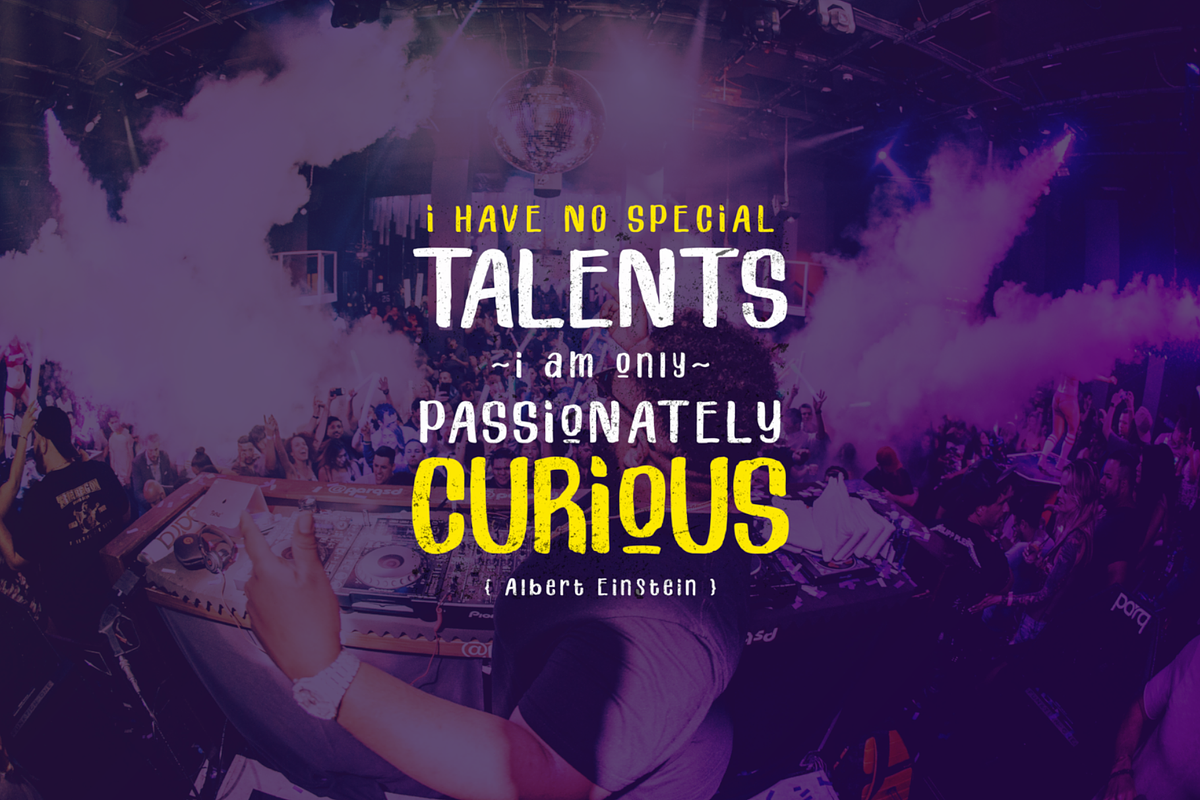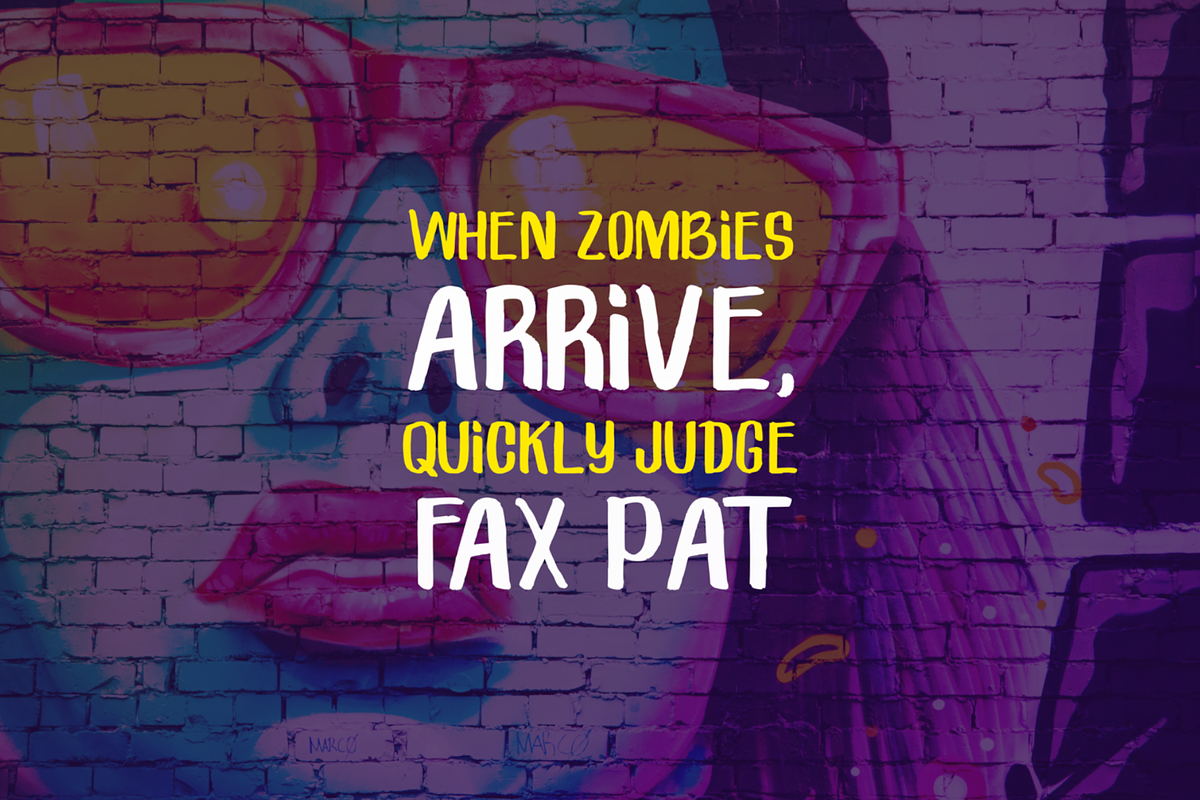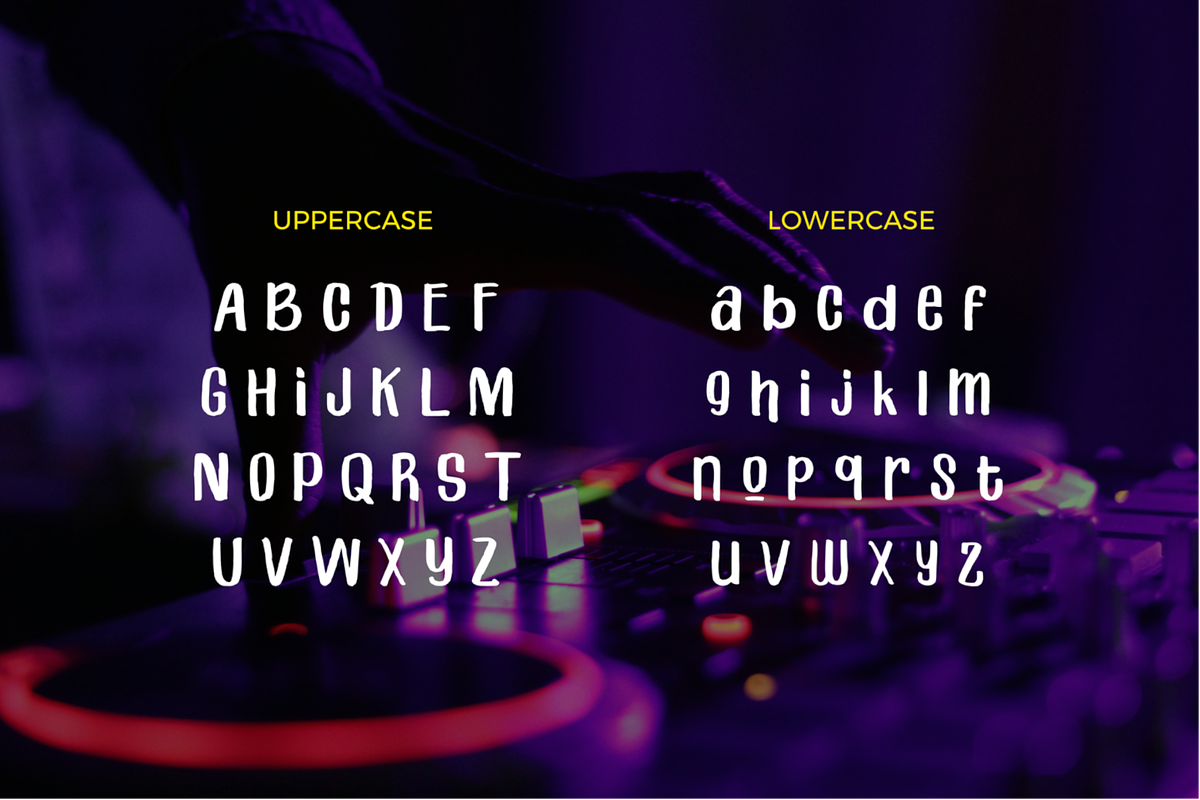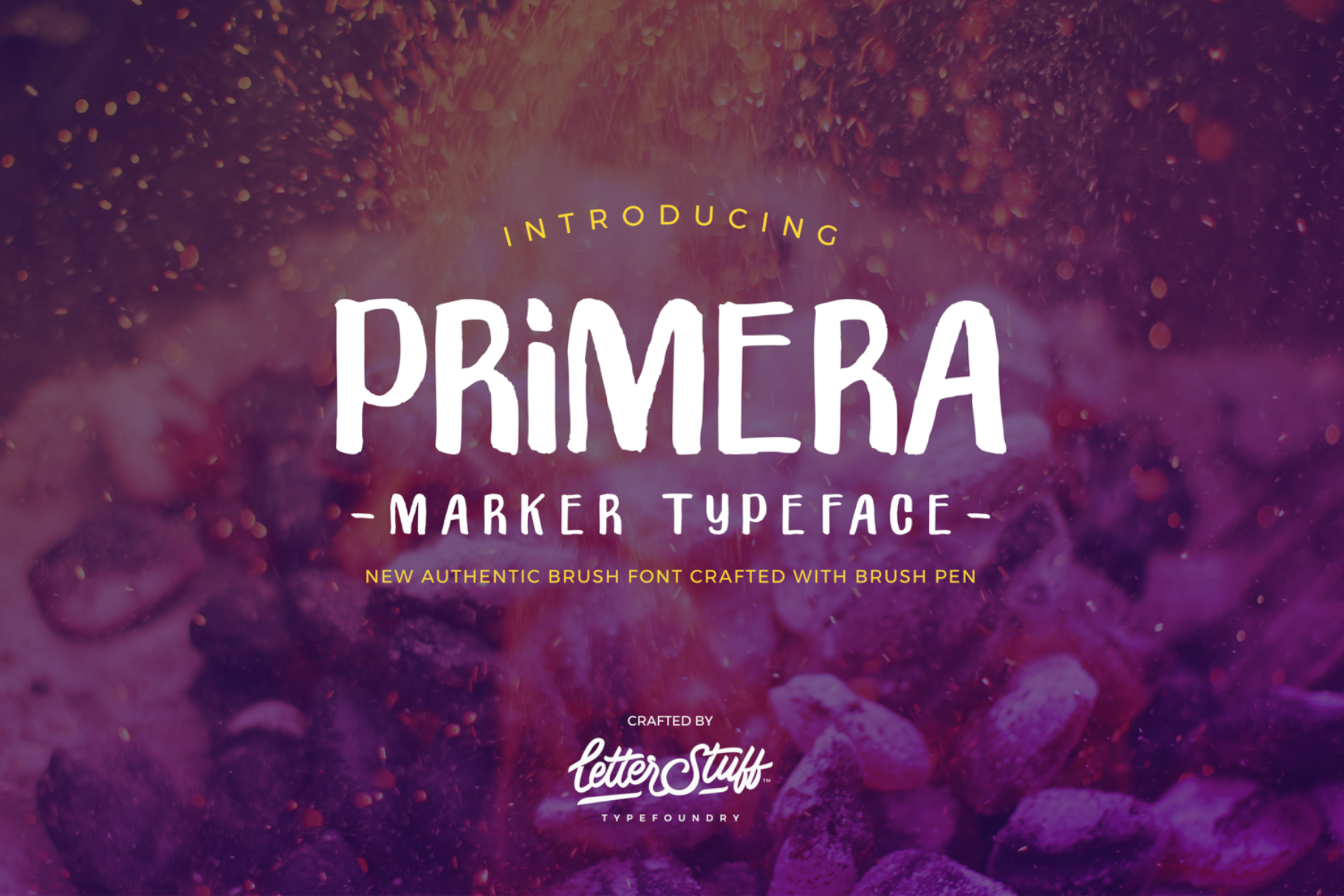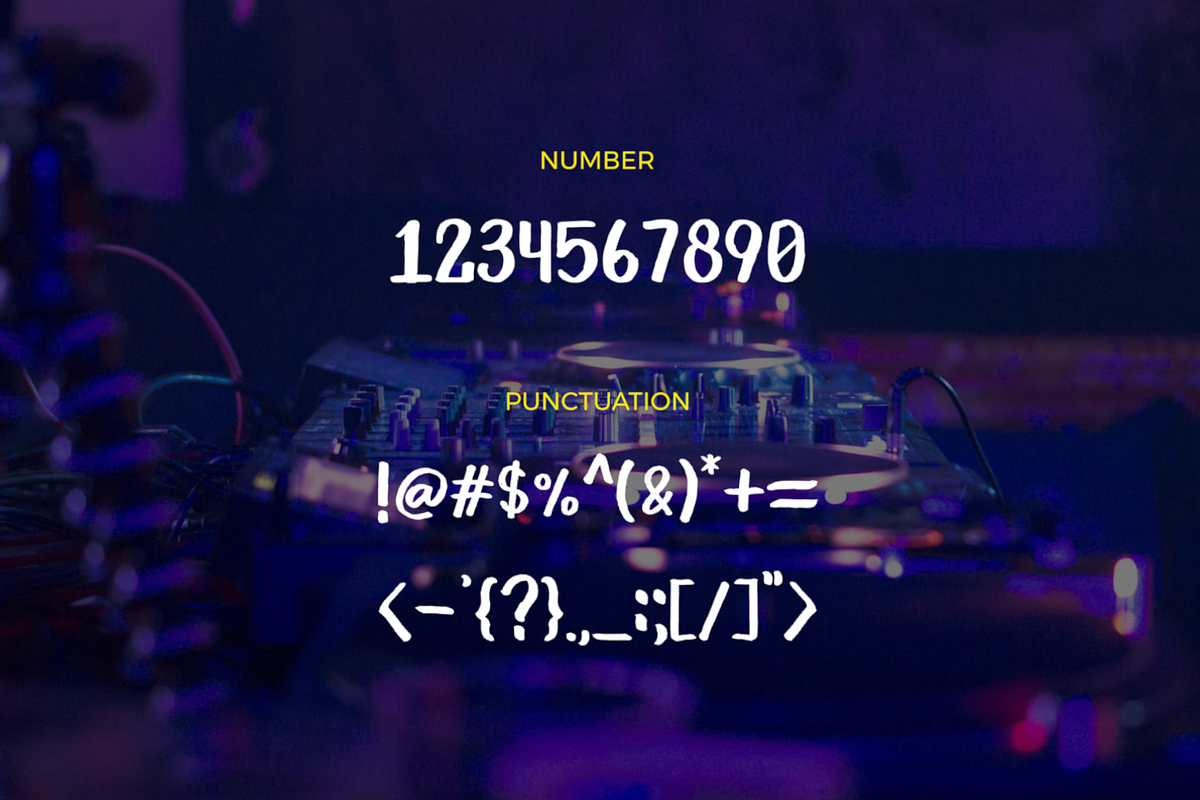
Primera Marker Typeface
Introducing Primera Marker Typeface A new authenthic marker font carefully crafted with brush pen. This marker-like typeface will work great on wide range of design work. Hence, Primera is looking unusually stunning for display such as poster, packaging, cover and a lot more!